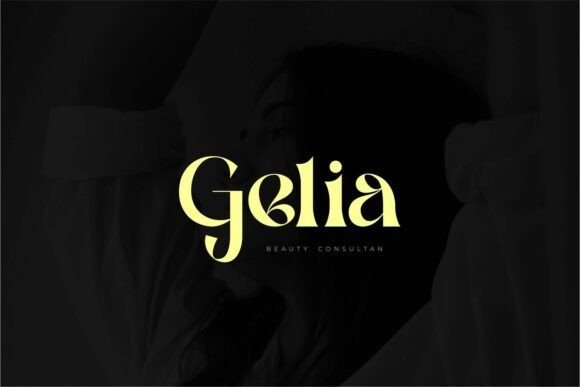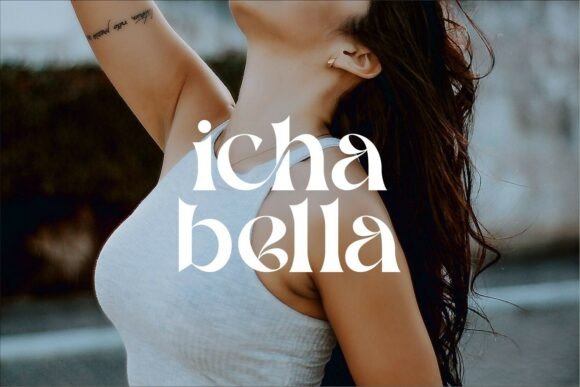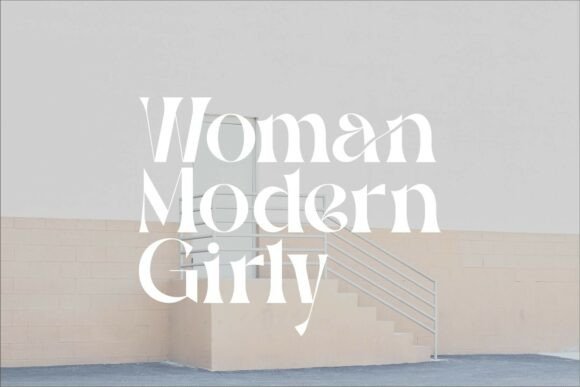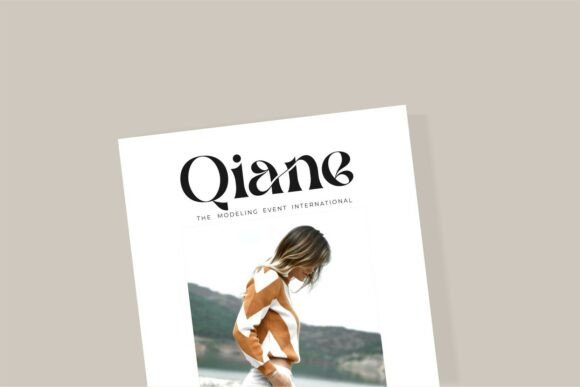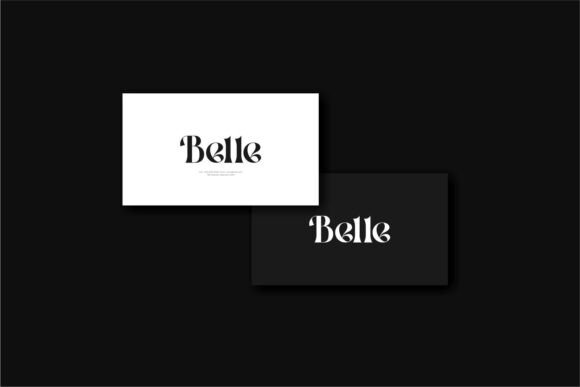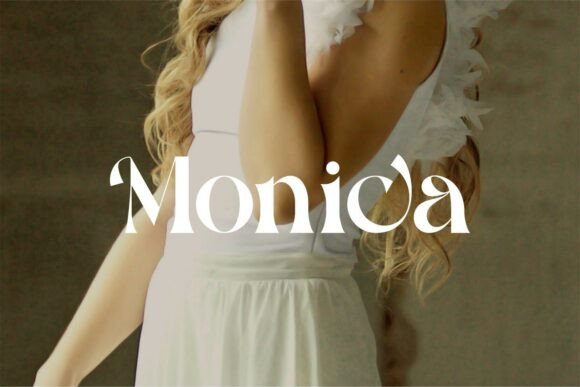
Introduction to Magic Delight Font
Magic Delight is a high-contrast modern serif display font infused with elegance and artistic flourish.
Characterized by its graceful curves, tapered terminals, and dramatic stylistic alternates, this typeface evokes luxury and editorial sophistication Its unique letterforms—especially the sculptural loops, sweeping descenders, and expressive ligatures—offer a sense of movement and refinement, making it ideal for upscale branding, magazine titles, packaging, and fashion lookbooks.
Key Features of Magic Delight Font